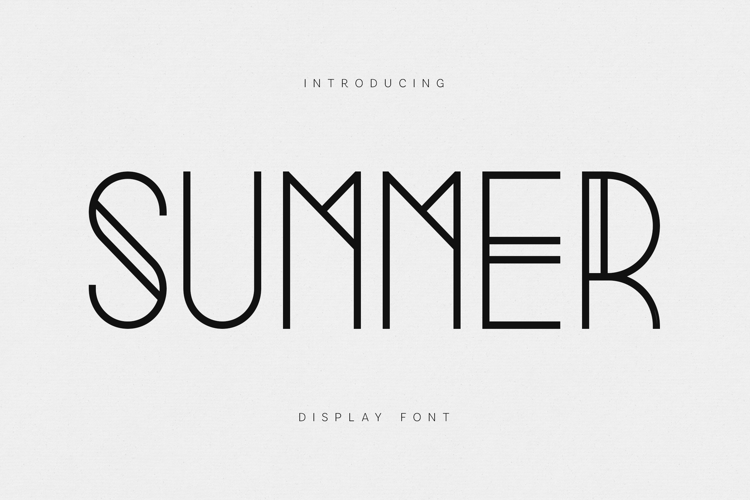
Summer Modern Display Geometric Minimal Typeface
Summer is a modern geometric display font that blends minimalism with distinctive character. Inspired by art-deco aesthetics and futuristic design, it features clean lines, unique letter constructions, and refined symmetry.
Its structured yet creative forms make it perfect for designers looking to stand out with a bold and contemporary visual identity.
Summer brings a balance of elegance and experimentation, making it ideal for branding, editorial layouts, and modern design projects that require a fresh and memorable typographic voice.
✨ Perfect for• Logo & branding design
• Posters & visual identity
• Editorial & magazine layouts
• Packaging design
• Fashion & modern campaigns
• Creative typography projects
• Geometric letterforms
• Unique decorative details
• Clean modern structure